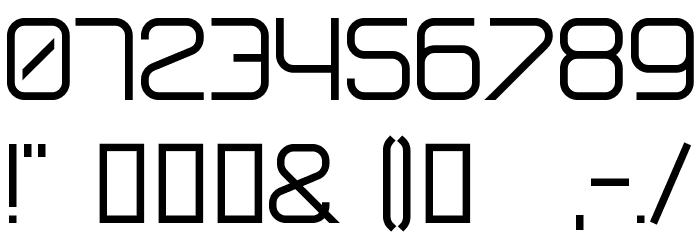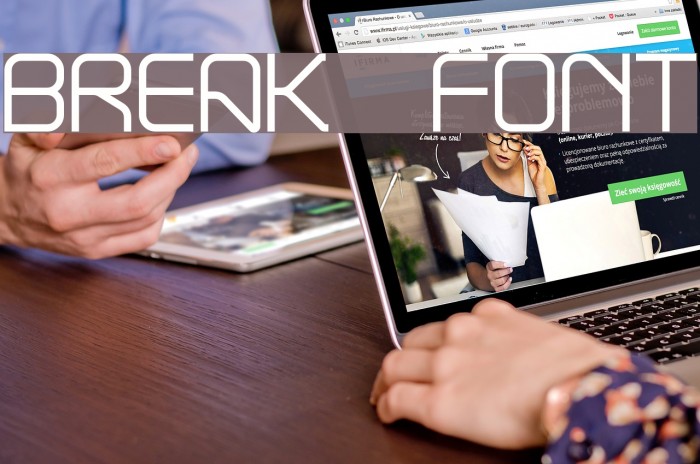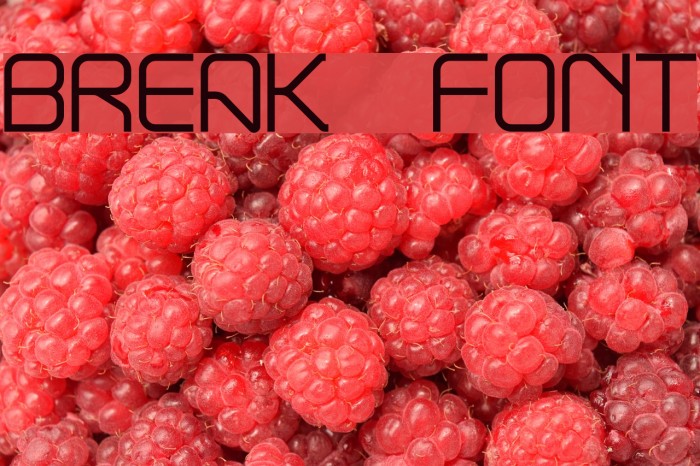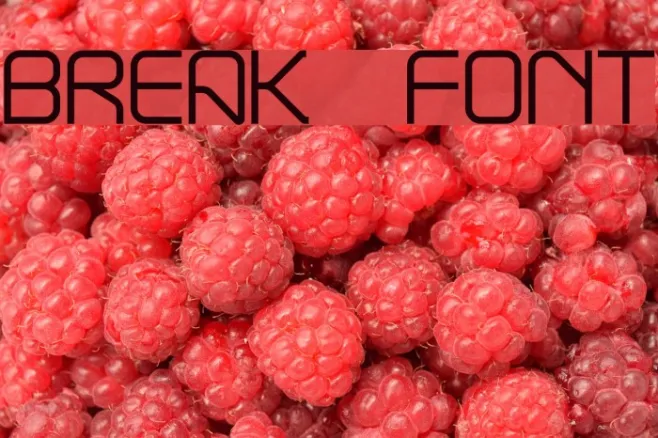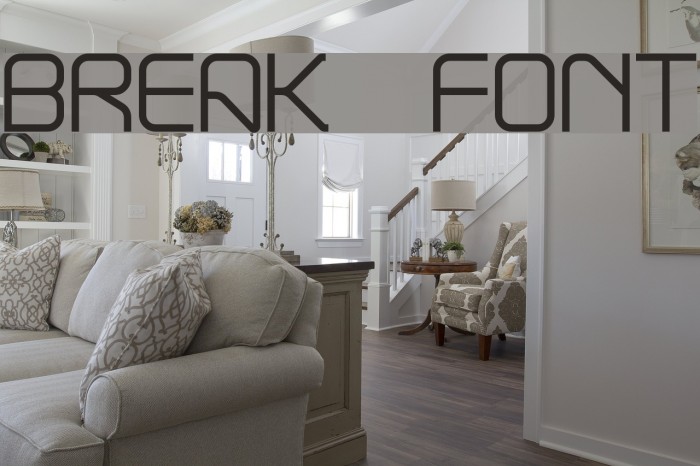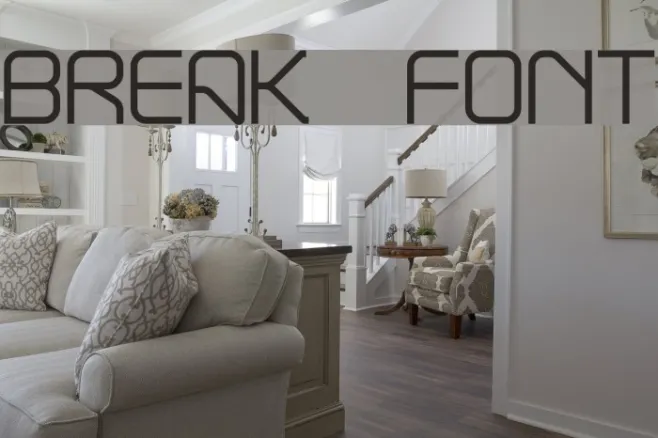
Break Font
Break Description
This font features a geometric and futuristic design with clean lines and a distinct angular style. The characters are constructed with a consistent stroke width, giving it a modern and sleek appearance. The uppercase and lowercase letters maintain a uniform height, while the numerals and special characters complement the overall aesthetic. The font's design is minimalistic, yet it stands out due to its unique structure and contemporary feel. It is well-suited for digital displays and projects that require a modern touch.
| Use Case | Headlines, Logos, Digital displays |
| Proposed Projects | Ideal for technology branding, digital interfaces, modern posters, and futuristic-themed projects. |